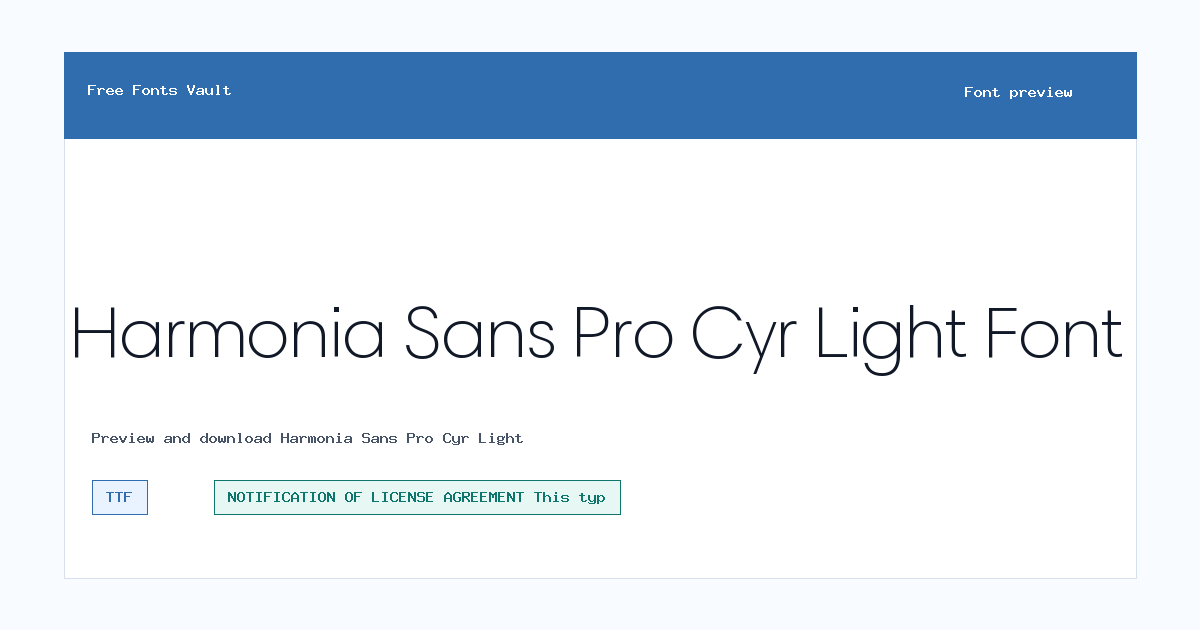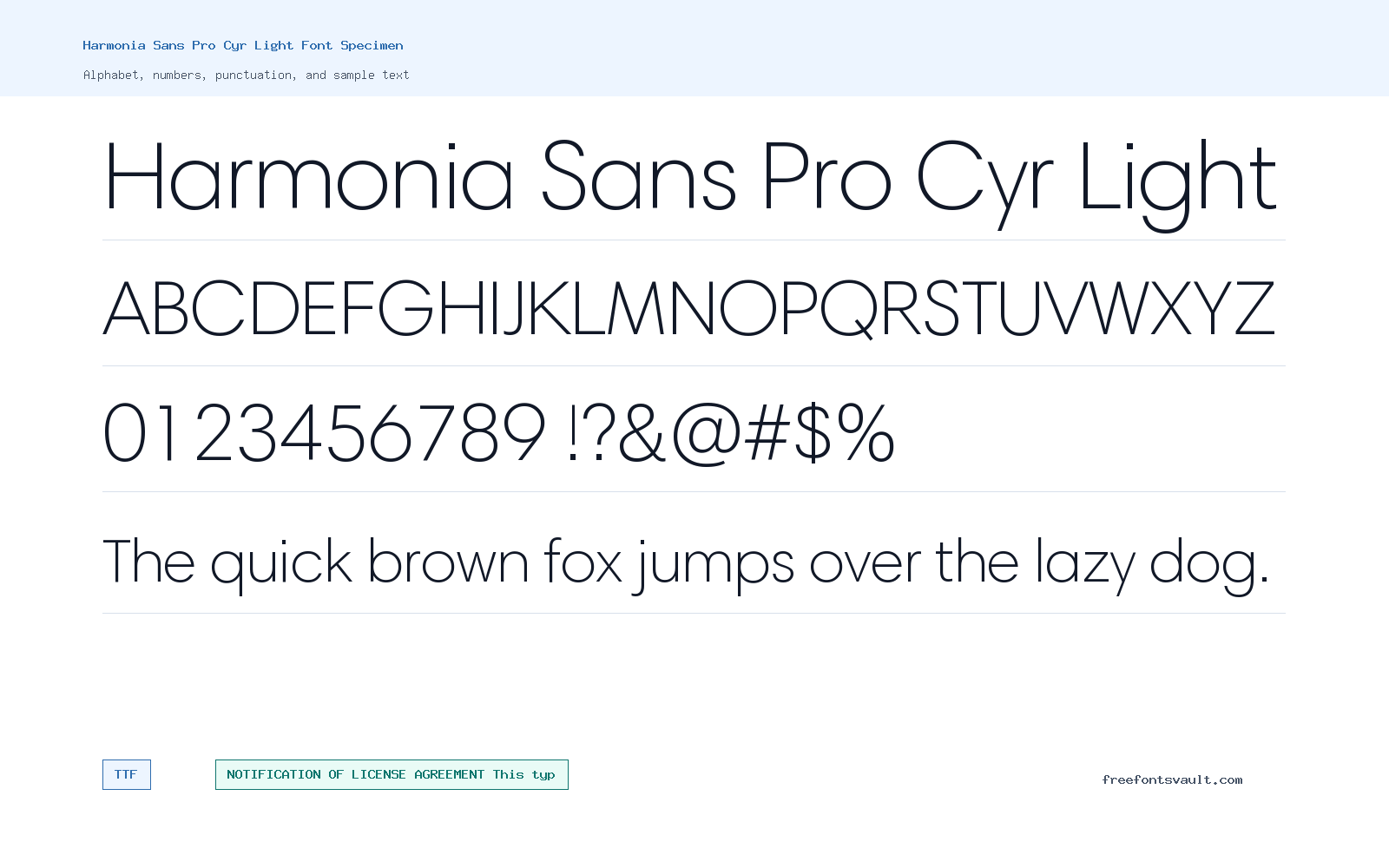
Harmonia Sans Pro Cyr Light
Harmonia Sans Pro Cyr Light is a clean, light-weight sans serif that suits calm headings, refined labels, and uncluttered editorial layouts. Test your own text in the preview before downloading, because thin sans fonts can change a lot depending on size, spacing, and screen rendering.
About Harmonia Sans Pro Cyr Light
The listed file is HarmoniaSansProCyr-Light.ttf, a TrueType font with a 300 weight. The family name points to the Cyrillic-oriented Harmonia Sans Pro Cyr branch, while the Light style gives the letters a restrained, airy feel that works well when the design has enough space around the text.
Use this style when you want a modern sans serif voice without heavy visual pressure. It can look polished in section headings, app labels, presentation titles, menu text, branding drafts, and magazine-style layouts. For small sizes or low-contrast colors, test carefully; light weights often need extra contrast and slightly larger sizing to stay comfortable.
• Designed by Jim Wasco with Monotype Imaging Inc. listed as foundry
• Clean spacing for headings, labels, and short editorial text
• Needs strong contrast when used at small sizes or on busy backgrounds
• Minimal headings, refined subheads, and presentation titles
• Branding drafts, UI labels, menus, and editorial layouts
• Designs that need a light sans serif rather than a heavy display face
Who designed Harmonia Sans Pro Cyr Light?
The designer is listed as Jim Wasco, and the foundry is listed as Monotype Imaging Inc.
What does the Light style mean?
The listed weight is 300, so the letters are lighter and more delicate than a regular or bold sans serif style.
Where does this font work best?
It works best in clean headings, subheads, labels, presentation slides, and layouts where there is enough contrast and space for a light sans serif.